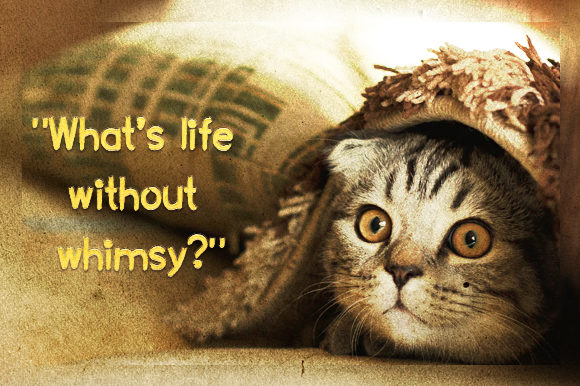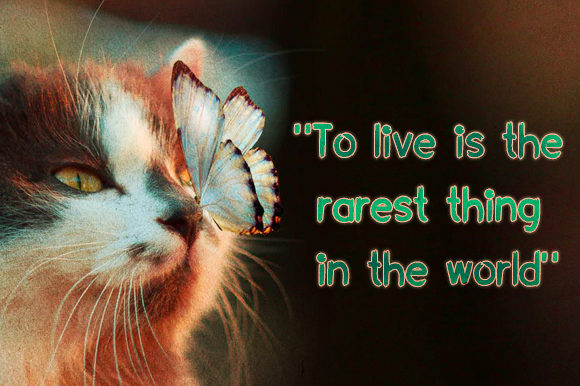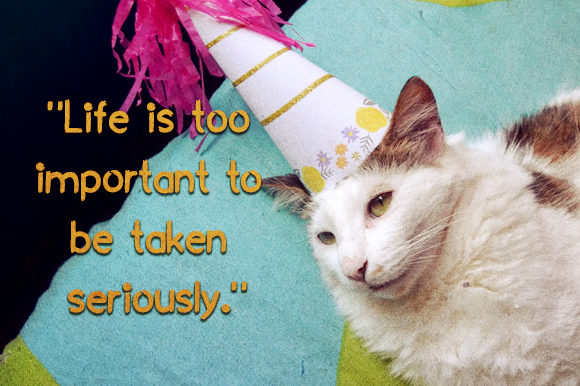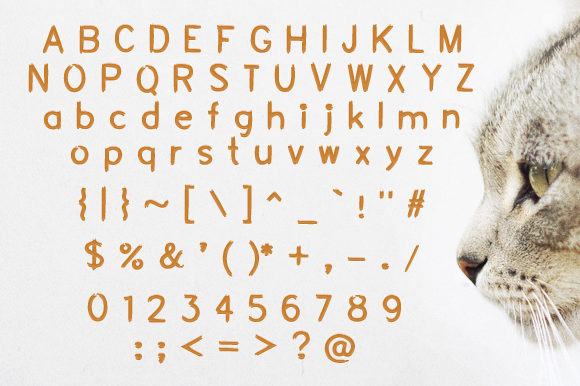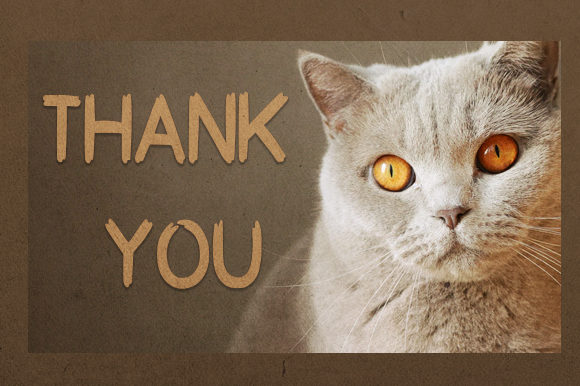
Discover the Charm of Catguaret Font: A Friendly and Playful Sans Serif
In the world of typography, fonts play a crucial role in conveying messages, expressing emotions, and creating lasting impressions. For designers, crafters, and anyone looking to add a personal touch to their projects, finding the right font can be a daunting task. However, if you’re searching for a unique sans serif font that exudes friendliness and playfulness, look no further than Catguaret Font. In this article, we’ll dive into the characteristics, benefits, and uses of Catguaret, exploring why it’s the perfect choice for delivering any message with charm.
What is Catguaret Font?
Catguaret is a distinctive sans serif font designed to capture the essence of friendliness and approachability. Its unique design makes it stand out in the vast sea of typography, offering a refreshing alternative to traditional fonts. With its clean lines, rounded edges, and balanced proportions, Catguaret strikes the perfect balance between modernity and warmth, making it an excellent choice for a wide range of projects.
Key Characteristics of Catguaret Font
- Unique Sans Serif Design: Catguaret boasts a sans serif design that is both contemporary and highly legible, making it perfect for digital and print media.
- Playful and Friendly Look: The font’s rounded edges and soft curves give it a playful and friendly appearance, ideal for brands and projects that want to convey approachability and warmth.
- High Versatility: Catguaret’s balanced design allows it to be versatile, suitable for everything from headings and titles to body text.
- Easy to Read: Despite its playful nature, Catguaret maintains high readability, ensuring that your message is conveyed clearly and effectively.
Benefits of Using Catguaret Font
Choosing Catguaret for your design or crafting projects comes with numerous benefits:
- Emotional Connection: The friendly and playful nature of Catguaret helps create an emotional connection with your audience, making your message more relatable and engaging.
- Brand Differentiation: In a crowded marketplace, Catguaret can help your brand stand out with its unique typography, setting you apart from competitors.
- Wide Range of Applications: From digital content and advertising to packaging and handmade crafts, Catguaret’s versatility means it can be used across various mediums and projects.
- Enhances Creativity: The distinctive look of Catguaret can inspire creativity, allowing designers and crafters to explore new ideas and express themselves in innovative ways.
How to Use Catguaret Font Effectively
To maximize the impact of Catguaret, consider the following tips:
- Pair with Complementary Fonts: For maximum effect, pair Catguaret with serif fonts or other sans serifs that complement its playful and friendly vibe.
- Adjust Size and Weight: Experiment with different sizes and weights of Catguaret to create visual hierarchy and emphasize key messages.
- Consider Color Choices: The warmth of Catguaret can be further enhanced with the right color choices. Opt for colors that match the tone and personality of your brand or project.
Catguaret Font is more than just a typeface; it’s a tool for communication, expression, and creativity. Its unique blend of friendliness, playfulness, and versatility makes it an invaluable asset for designers, crafters, and anyone looking to add a personal touch to their work. Whether you’re creating digital content, designing a brand identity, or crafting handmade projects, Catguaret is sure to deliver your message with charm and impact. So, why settle for ordinary fonts when you can make a statement with Catguaret?
Embrace the charm of Catguaret Font in your next project and discover the difference that a thoughtful, creative approach to typography can make.